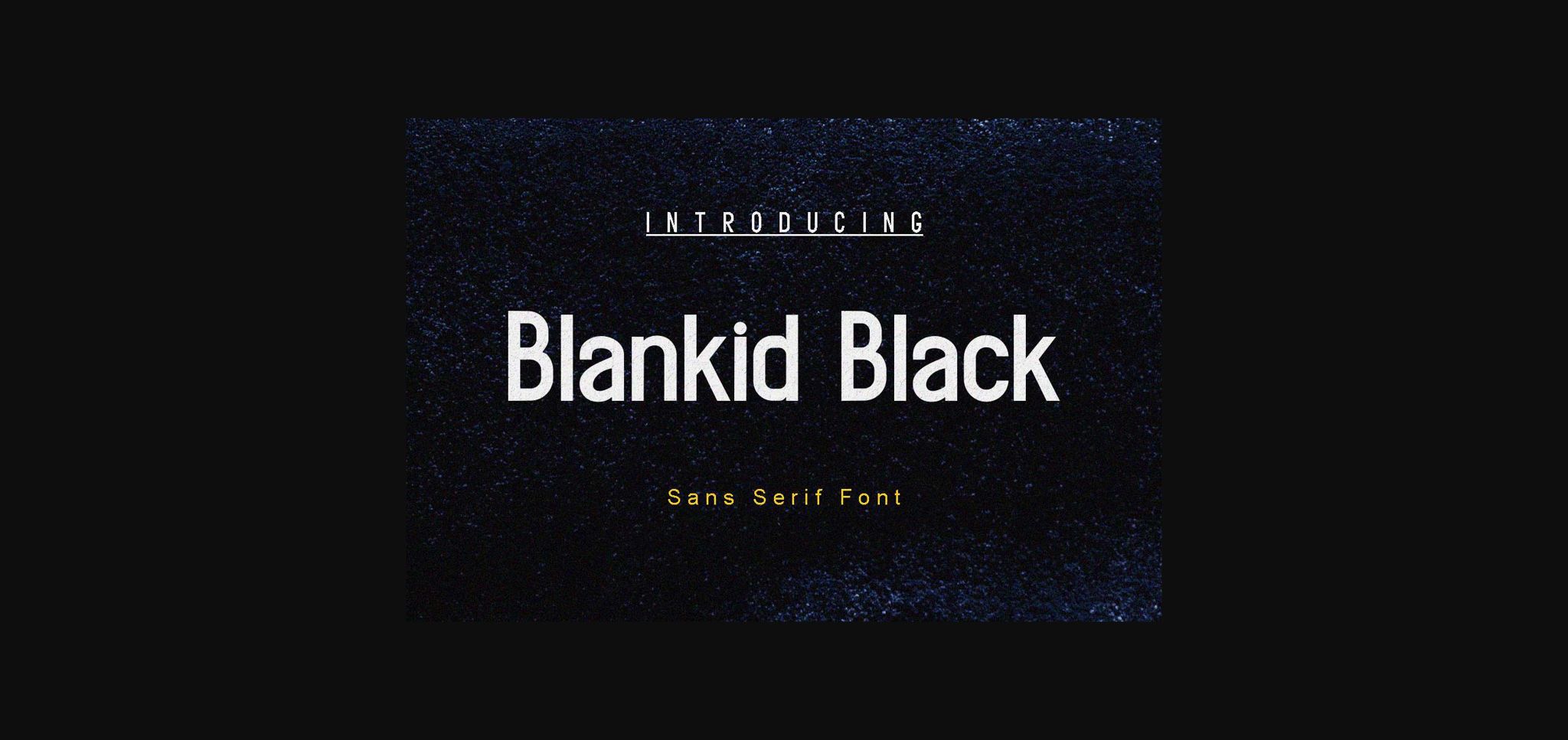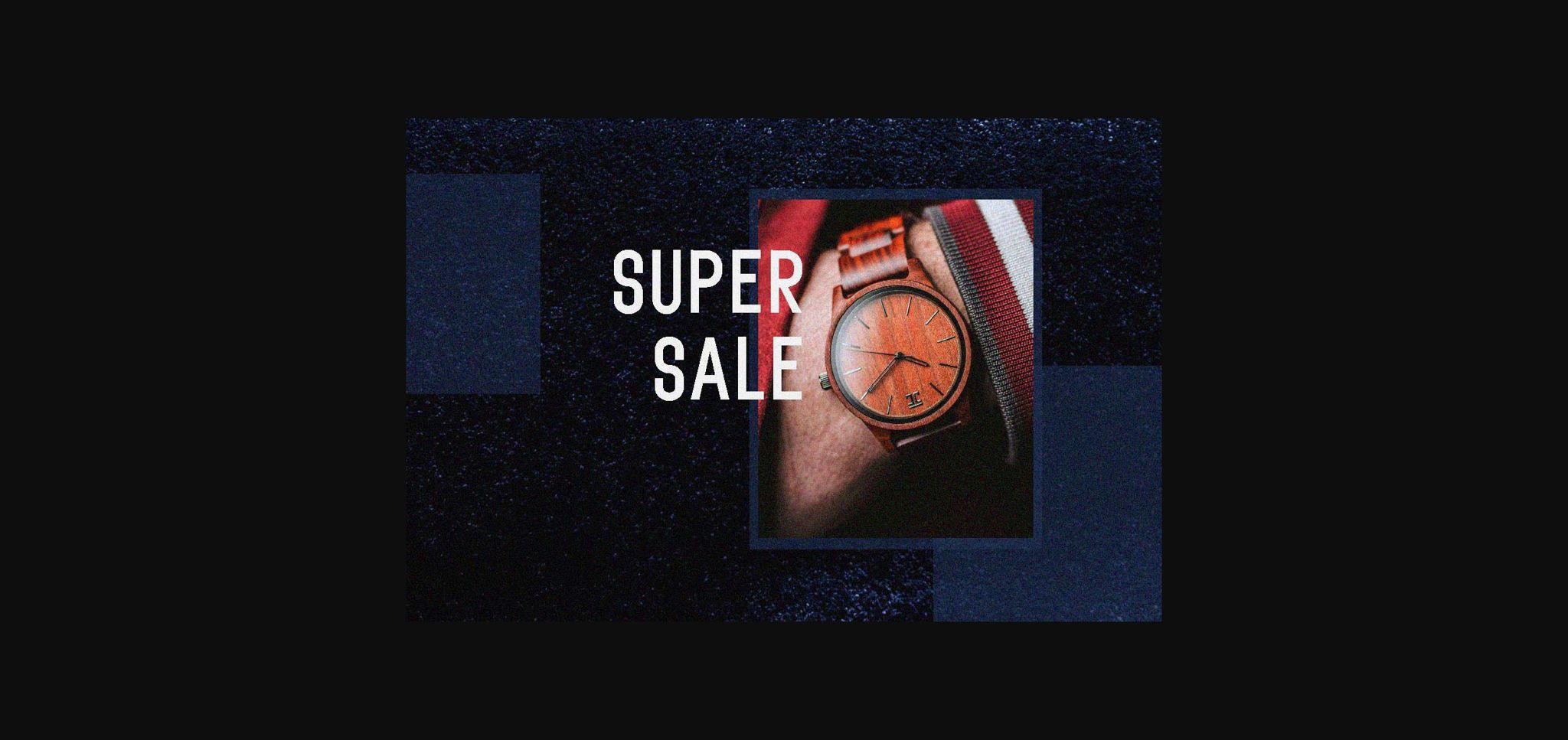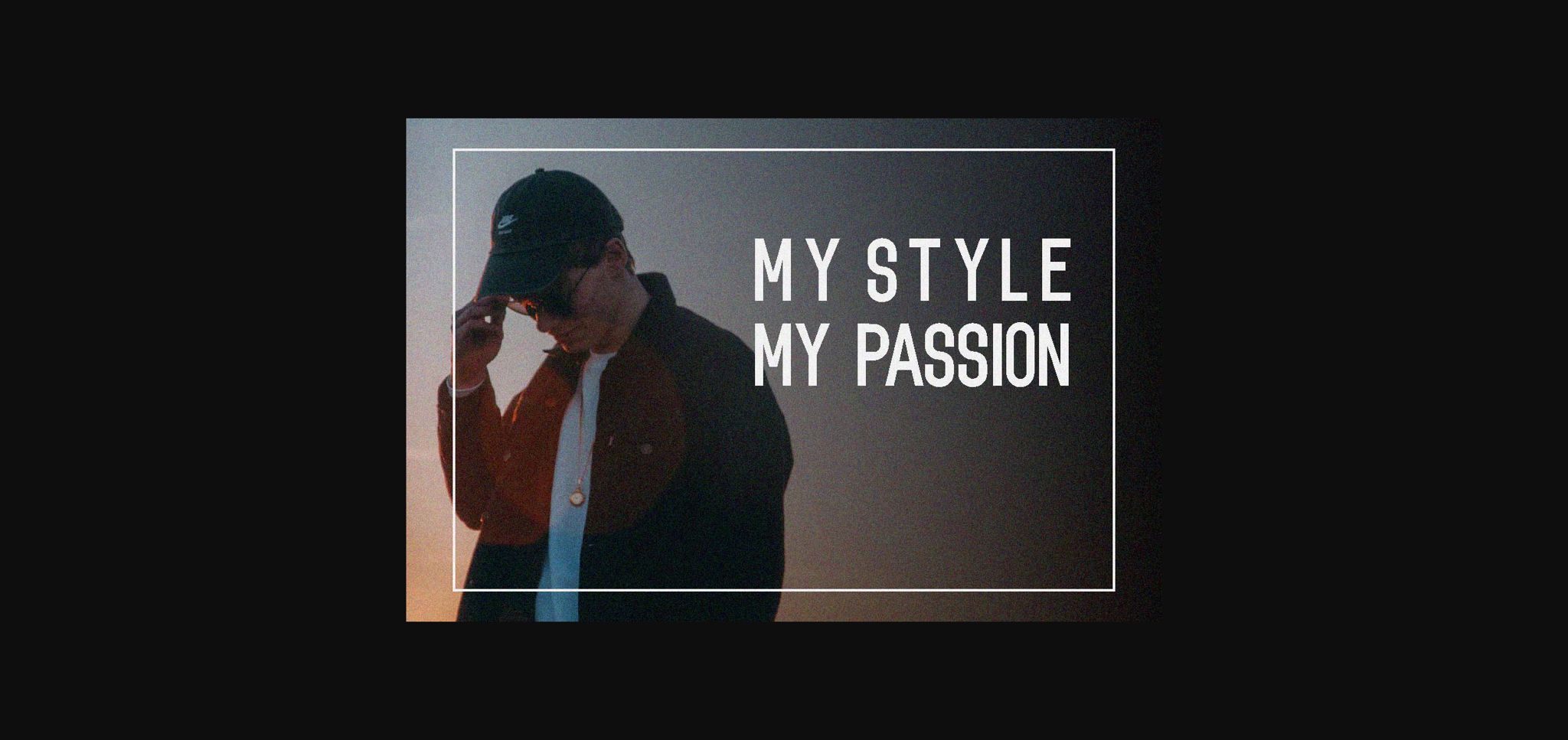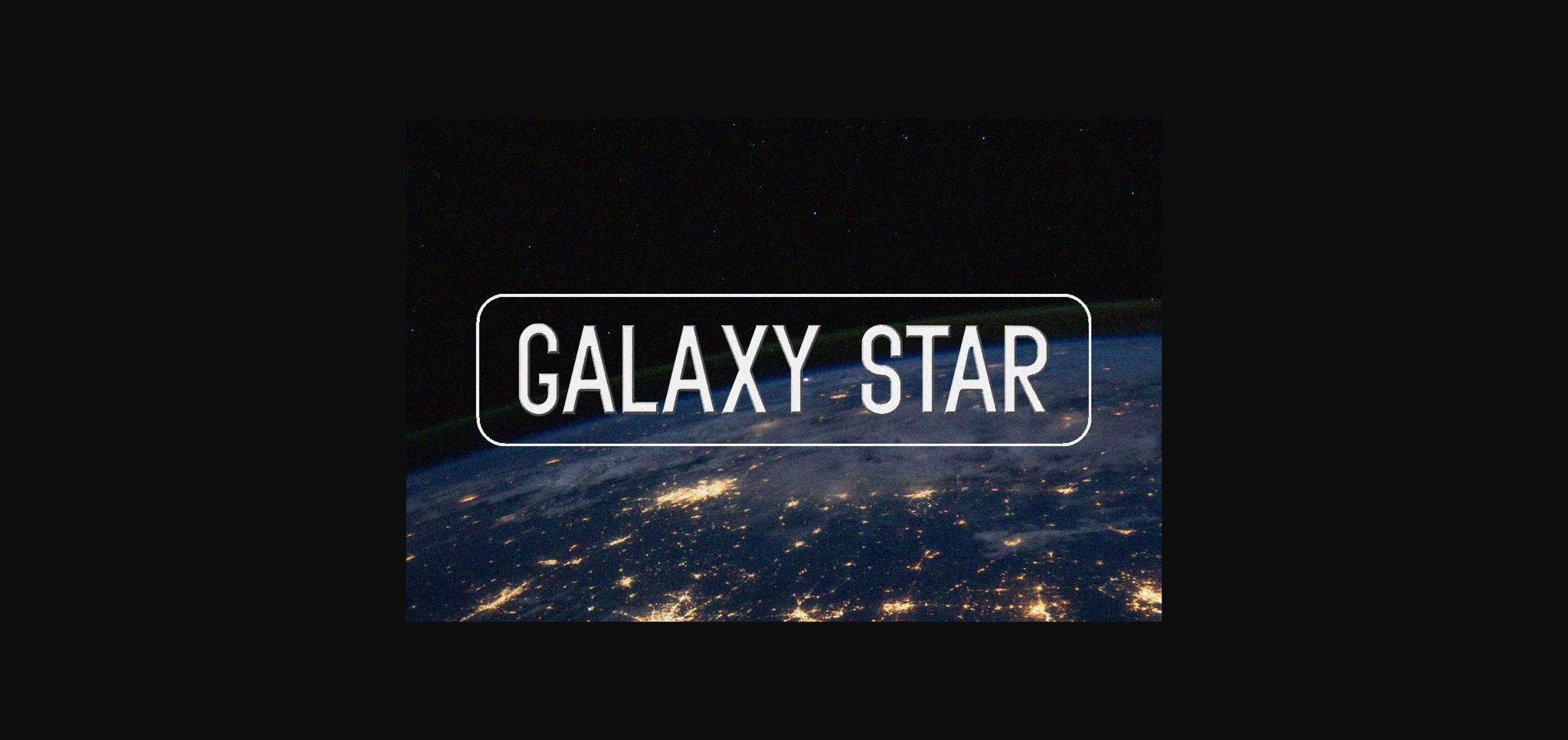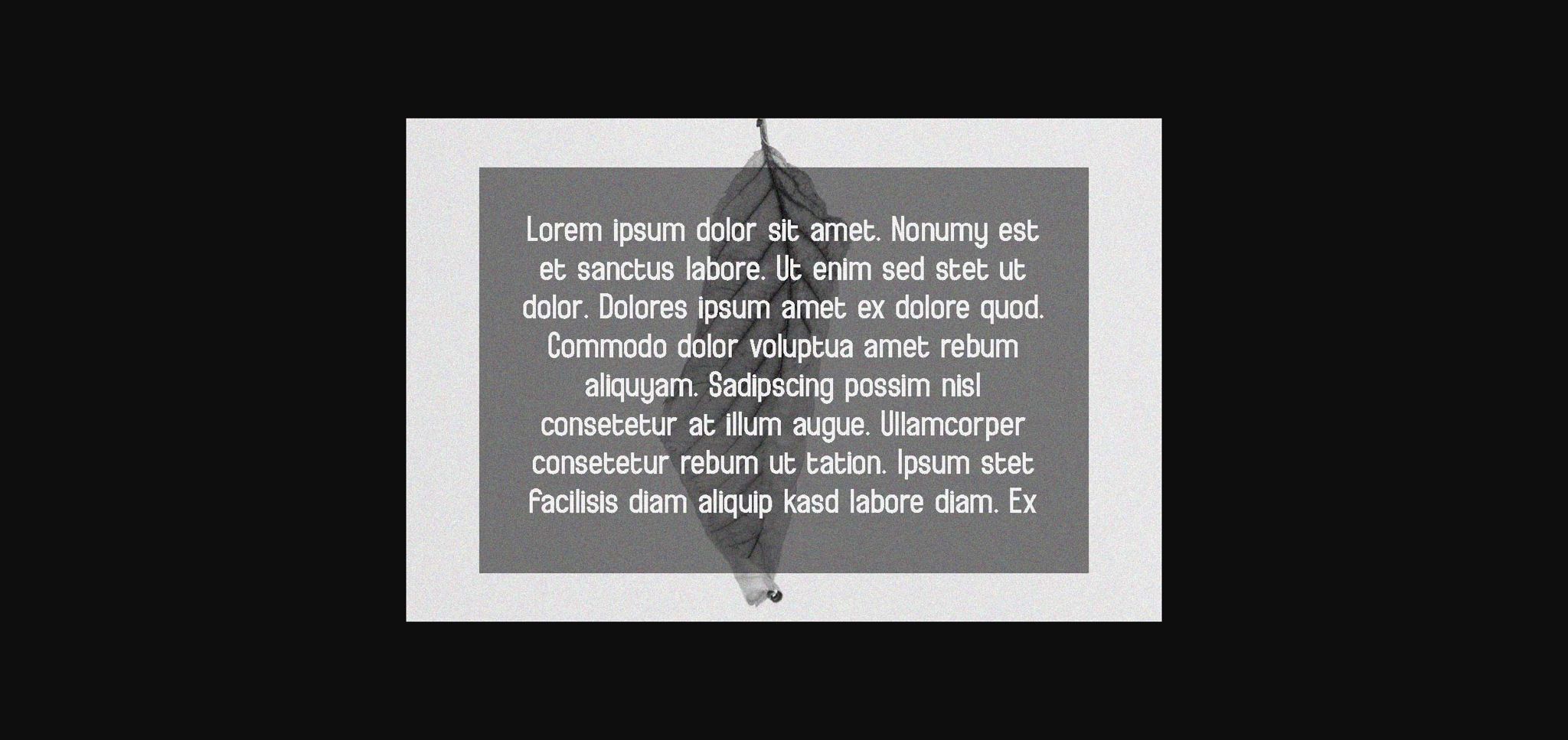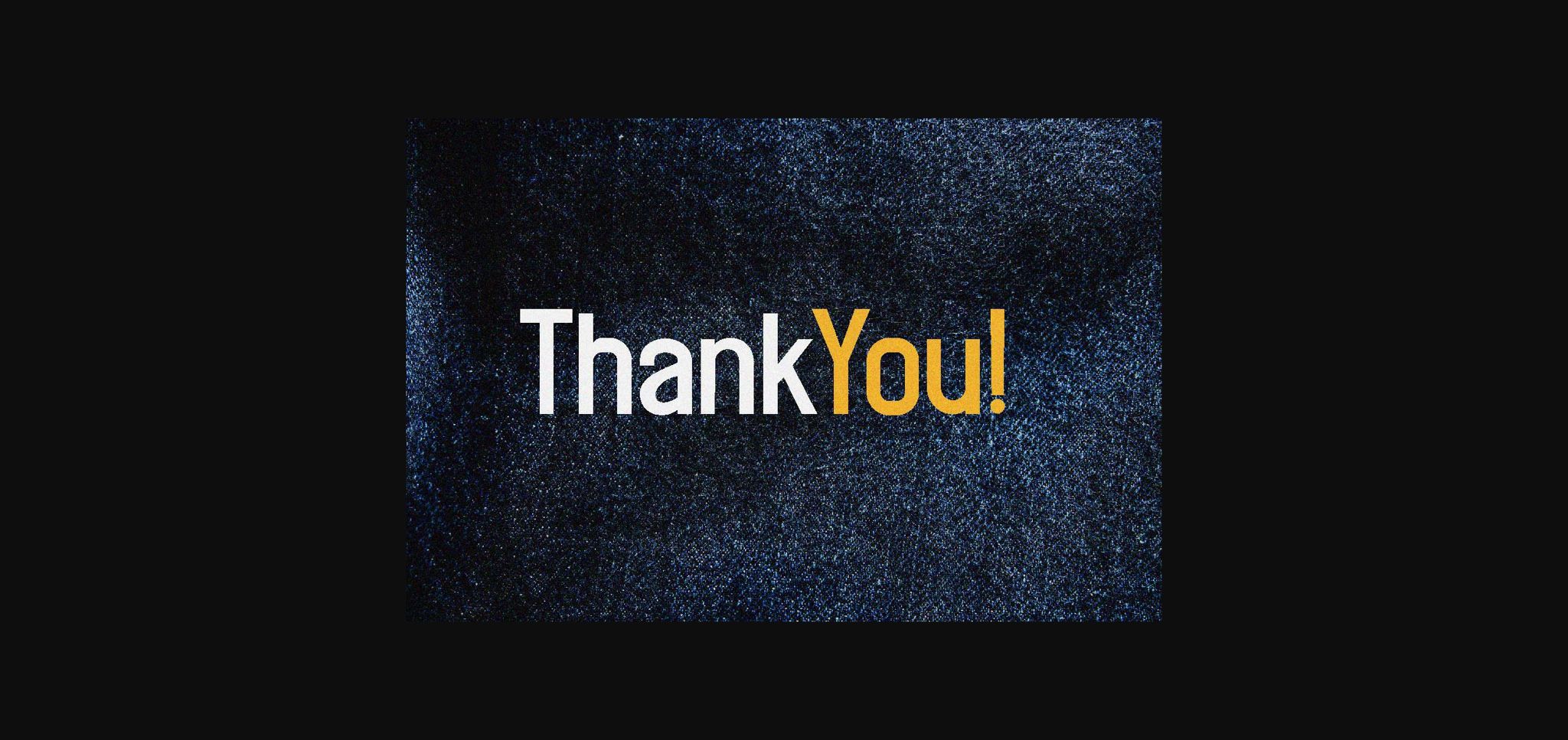
Blankid Black Font
About Blankid Black Font
Blackid black is a simple and neat sans serif font. This beautiful and professional typeface is suitable for posters, headlines, block letters, subheadings, logo designs, branding and so much more.